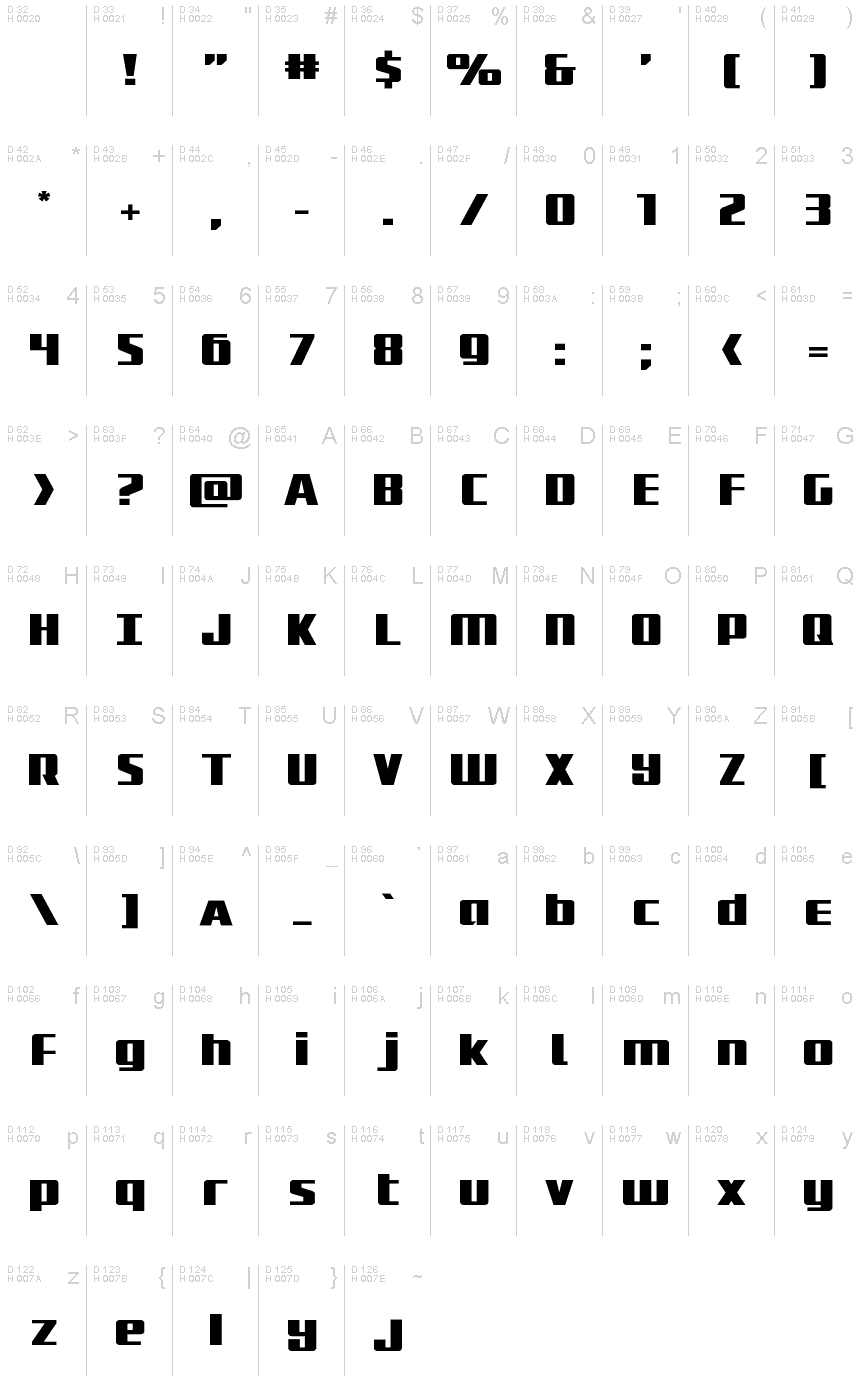
Subadai Baan Expanded by Iconian Fonts is a free modern display font with broad solid shapes and a hard industrial profile. Its squared joins and tight rounded corners keep the lettering mechanical.
It is strongest in science-fiction title cards, where the wide forms suggest machine housings or architectural panels, and it also fits game graphics and electronic music packaging. On event posters, angular icons, illuminated interface bars, and technical diagram shapes can extend the same geometric structure through the surrounding artwork.